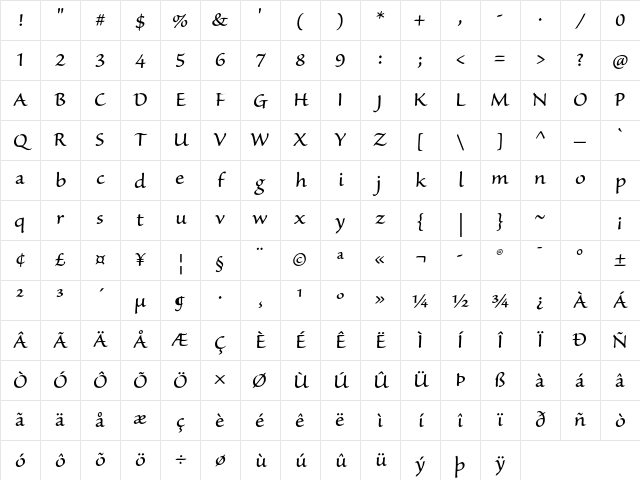
Sanvito Pro Caption
Style: Caption
Complete Sanvito Pro Caption glyph index. Displaying only characters natively supported by Sanvito Pro Caption font.
Design Context for Sanvito Pro
Sanvito Pro is a composed and adaptable typeface that performs quietly and consistently across a wide range of design contexts.